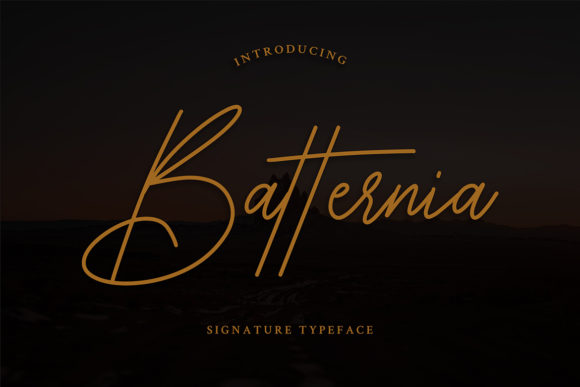
Introducing Batternia Font, a stunning script typeface that will captivate your senses and elevate your designs to new heights. This exquisite font is a testament to the intricate art of calligraphy, with each letter carefully crafted to exude elegance and authenticity. Immerse yourself in the world of Batternia and unleash your creativity.
With its signature style, Batternia Font adds a touch of sophistication and charm to any project you undertake. Its flowing lines and graceful curves evoke a sense of timeless beauty, while its modern aesthetic ensures it remains relevant and captivating. Whether you're a seasoned designer or just starting out, Batternia Font is the perfect choice for adding a personal touch to your work.
Step into a world of endless possibilities with Batternia Font. Imagine the exquisite wedding invitations you can create, with each letter dancing across the page like a delicate ballet. Envision the beautiful stationary art that will leave a lasting impression on your loved ones. Picture the eye-catching social media posts that will make your brand stand out from the crowd. And let's not forget the adorable greeting cards that will bring a smile to anyone's face.
Batternia Font is more than just a font; it's an expression of your creativity, a reflection of your unique style. Let your imagination soar as you explore the myriad ways to incorporate Batternia Font into your designs. The possibilities are endless, and the results will be nothing short of enchanting.